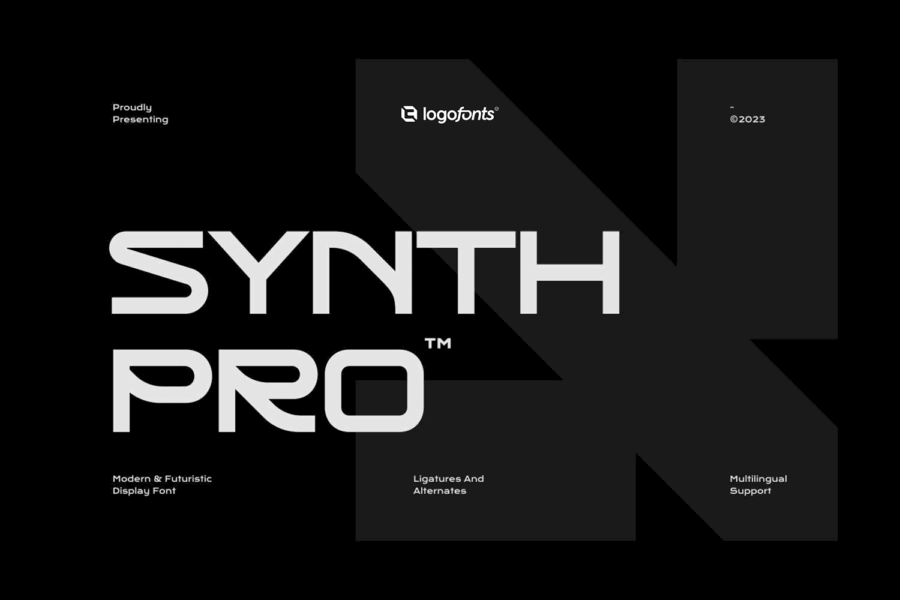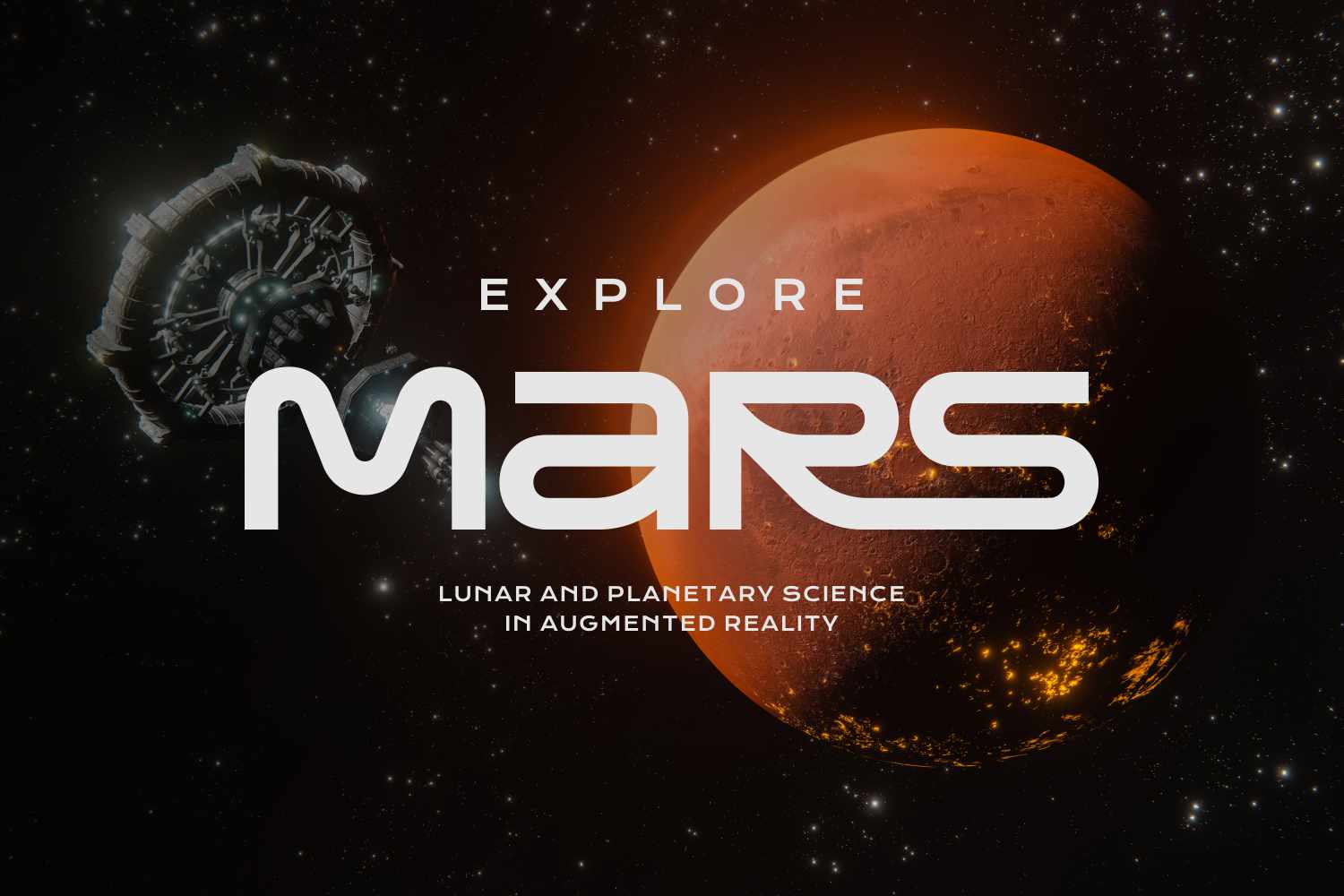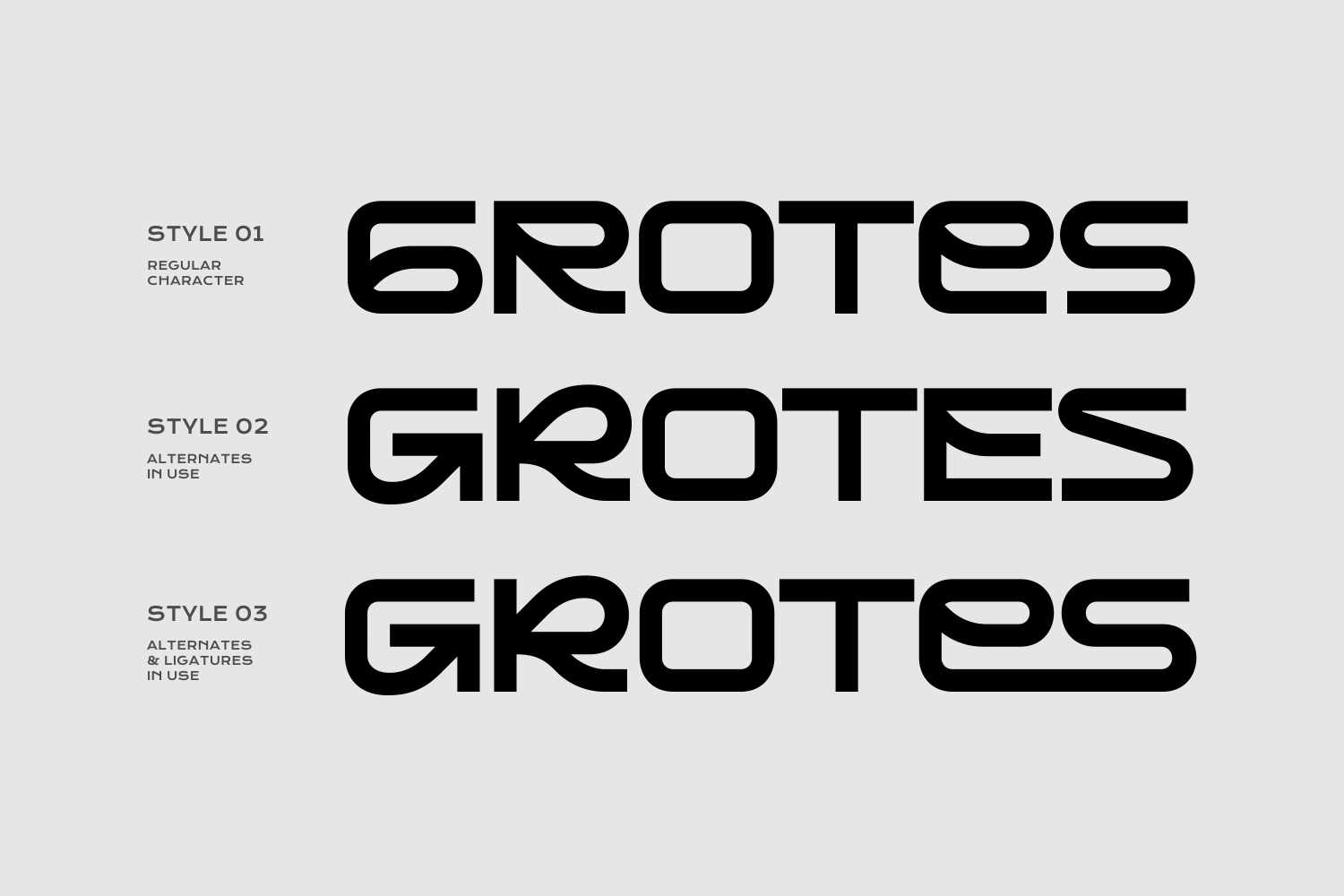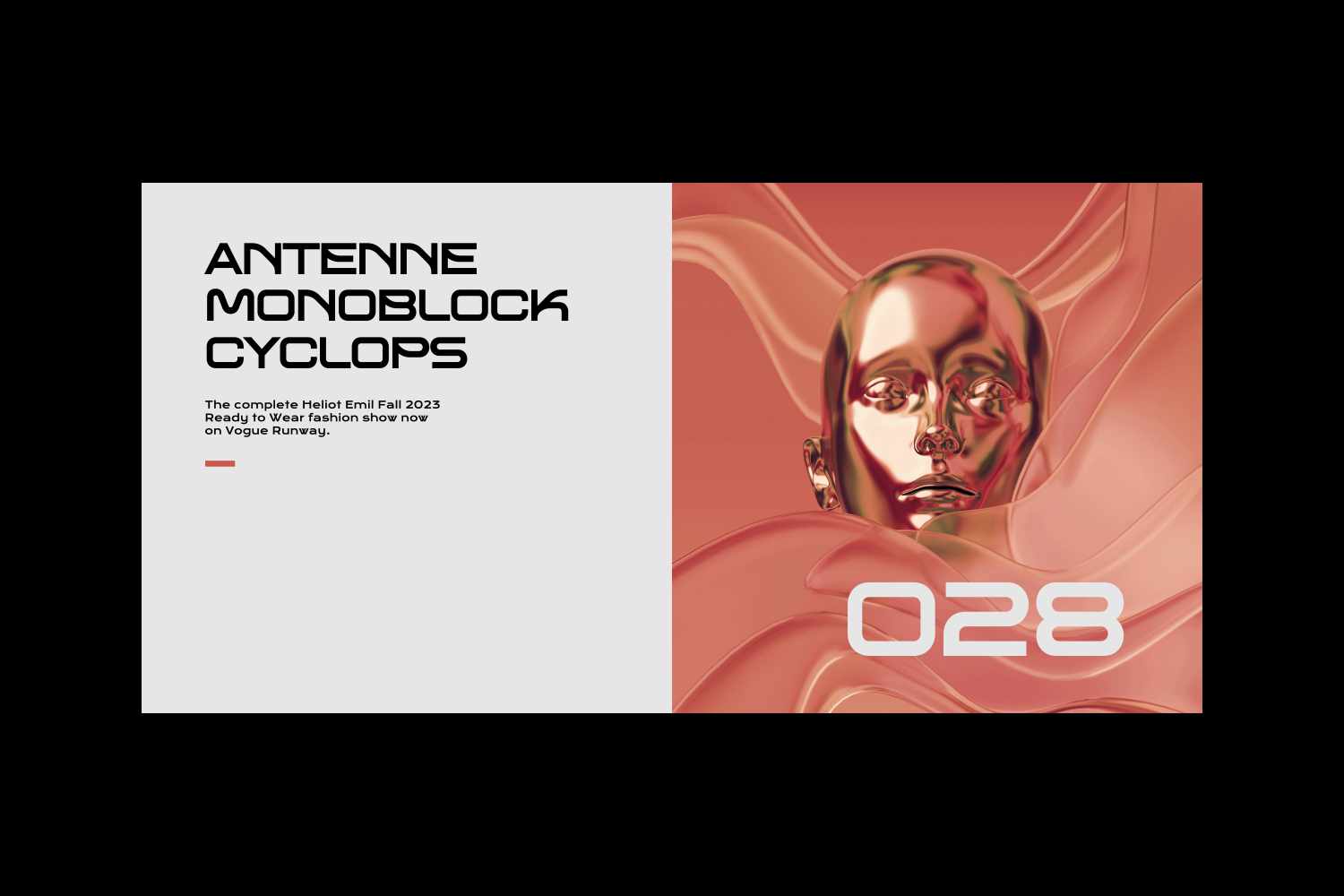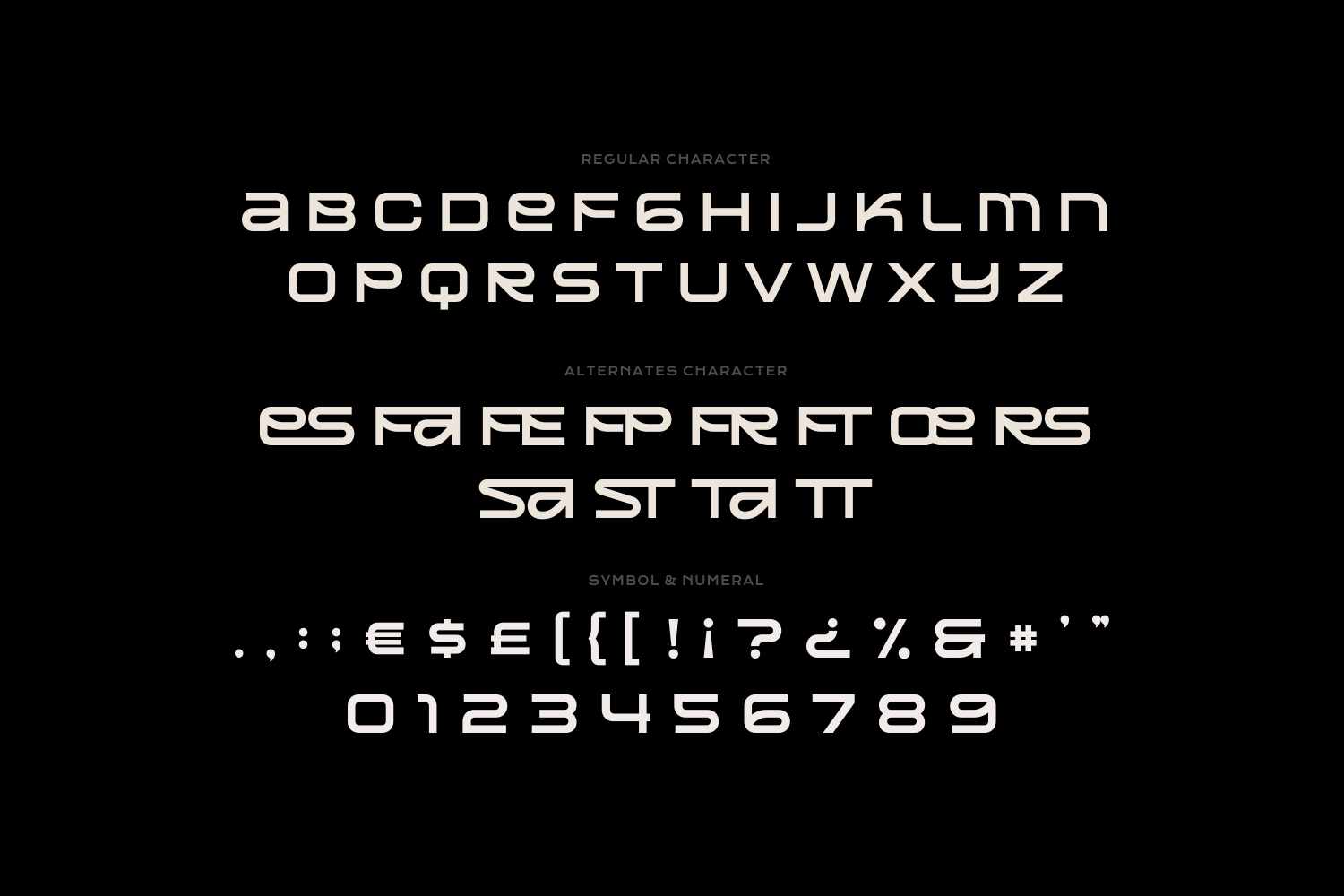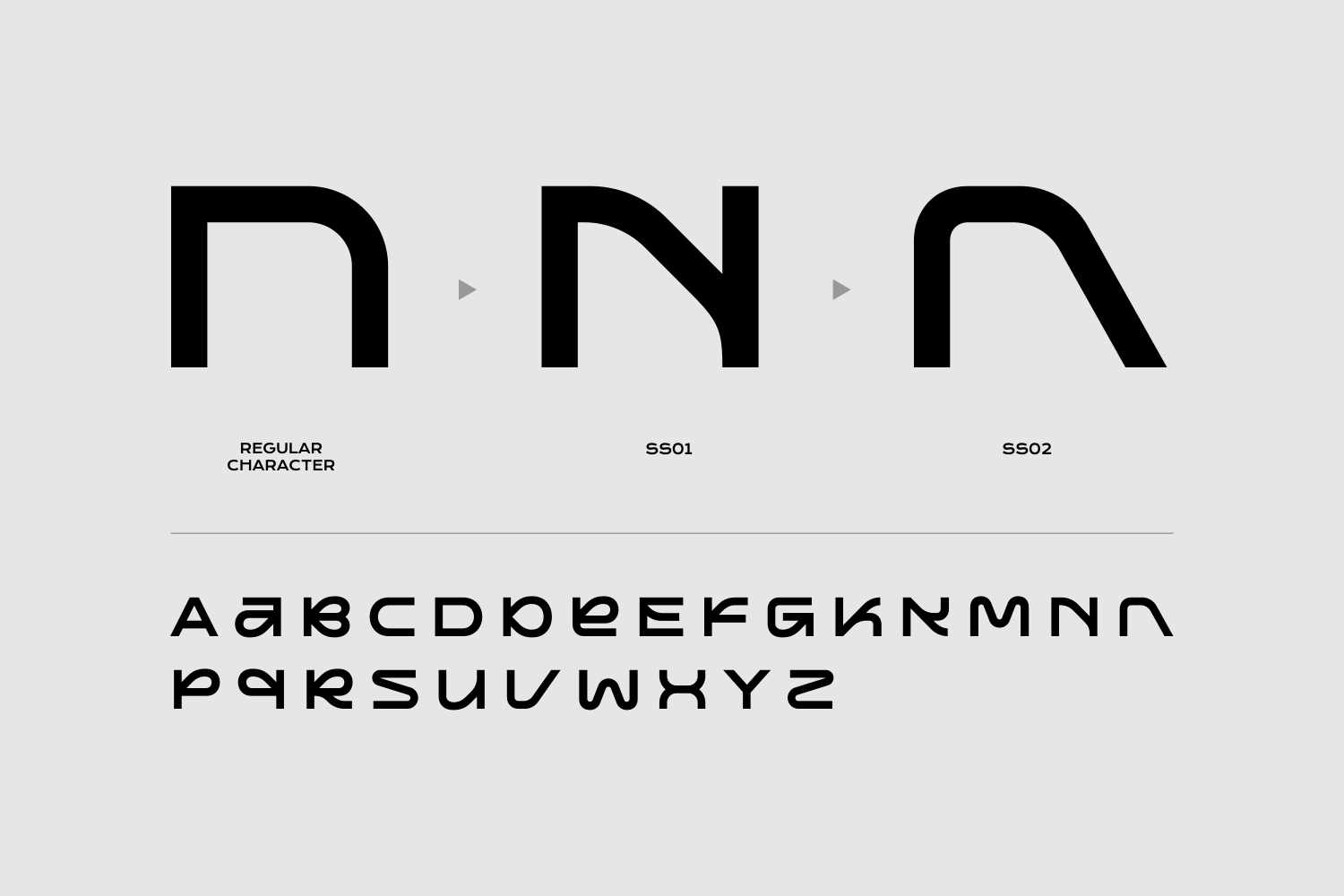
Synth Pro is a modern futuristic display font designed for cutting-edge visual projects. With sharp angles, modular curves, and distinctive alternates, Synth Pro offers a tech-forward character that fits perfectly into digital interfaces, sci-fi branding, or conceptual product design. It features multiple stylistic sets, advanced ligatures, and full multilingual support, making it a powerful tool for innovation-driven design environments.
Inspired by space technology, cybernetics, and digital typography, Synth Pro adds an advanced and experimental feel to any headline, logo, or poster. Its combination of consistent structure and futuristic styling allows designers to create immersive, modern visual identities. Whether you’re working on a game title, virtual exhibition, or tech product packaging, Synth Pro pushes the boundaries of contemporary type design.